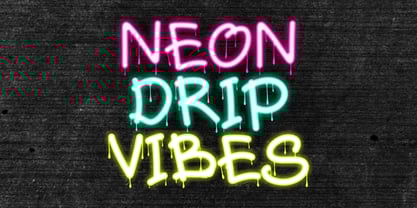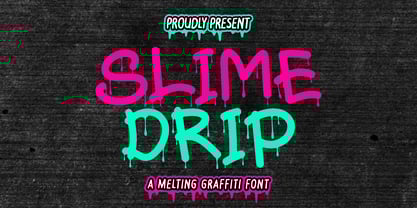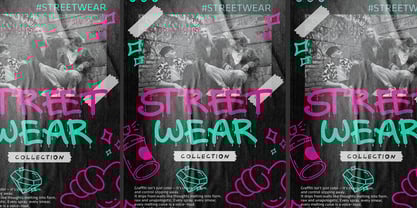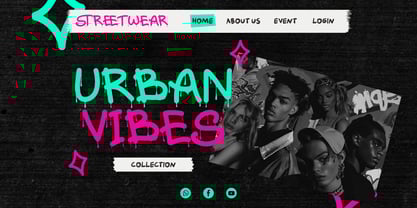
Slime Drip
by Shanaf
The Slime Drip Font Family was designed by Yesie Erma Yunita and published by Shanaf. Slime Drip contains 1 styles. More about this family
Introducing Slime Drip, a dynamic and contemporary monoline graffiti font that drips with style and attitude. This font stands out with its fluid, melting strokes reminiscent of fresh graffiti paint slowly dripping down a vibrant urban wall. Each character in the Slime Drip font is designed to mimic the spontaneous flow and energetic style of street art, enhanced by its bold monoline outline that ensures readability and visual impact. The playful yet striking design captures the essence of youthful rebellion and creativity, making it the perfect choice for urban-themed branding and eye-catching visual projects.
Ideal for a variety of applications, Slime Drip is versatile enough to complement logos, posters, stickers, and magazine covers, and bold enough to stand alone in branding, packaging, and promotional materials. Its vibrant aesthetic suits event invitations, striking headlines, streetwear apparel designs, and memorable business identities. Available with multilingual support, numerals, and a comprehensive character set, Slime Drip ensures designers have maximum flexibility to produce distinct and visually appealing creations that resonate with modern trends and capture attention instantly.
Designers: Yesie Erma Yunita
Foundry: Shanaf